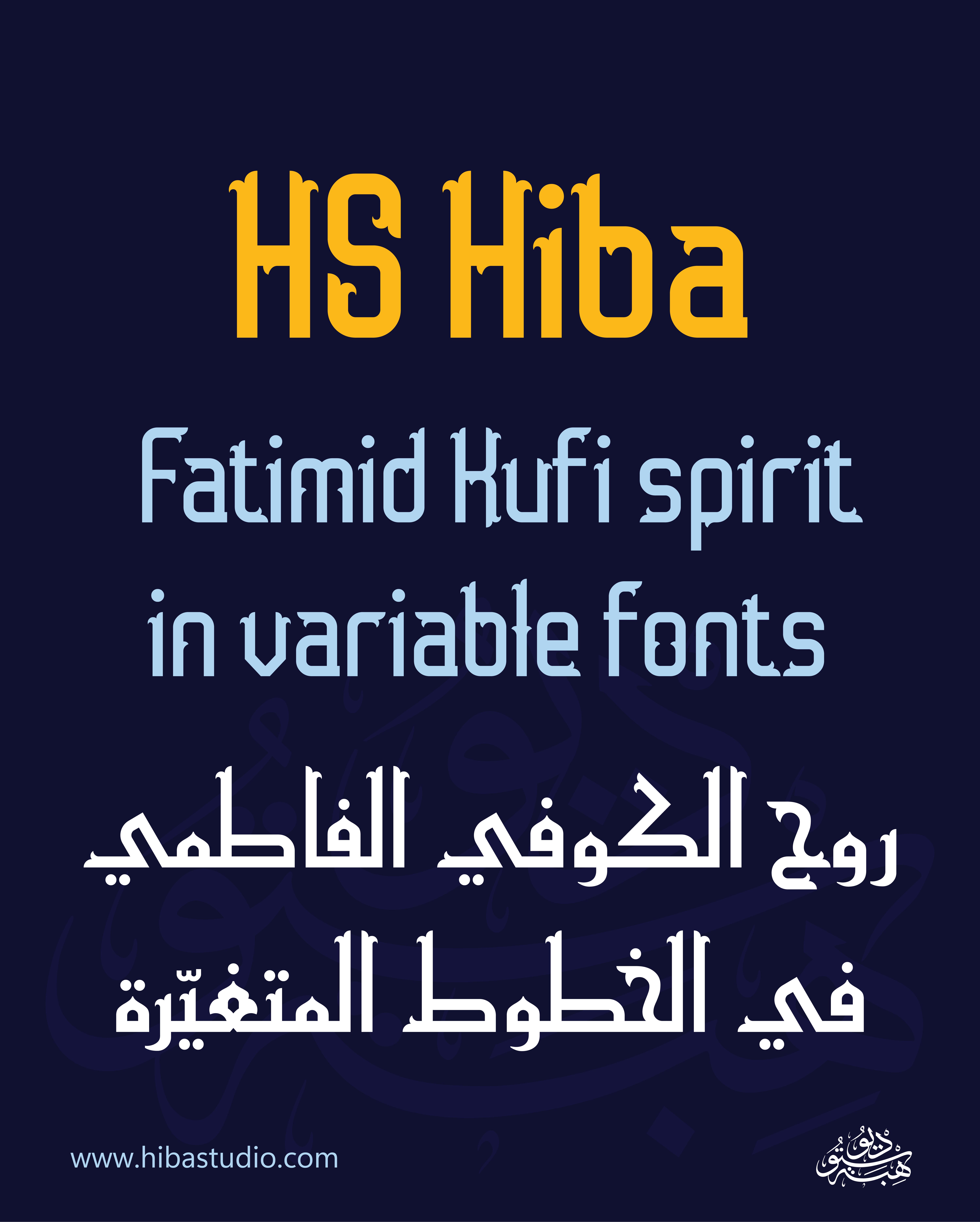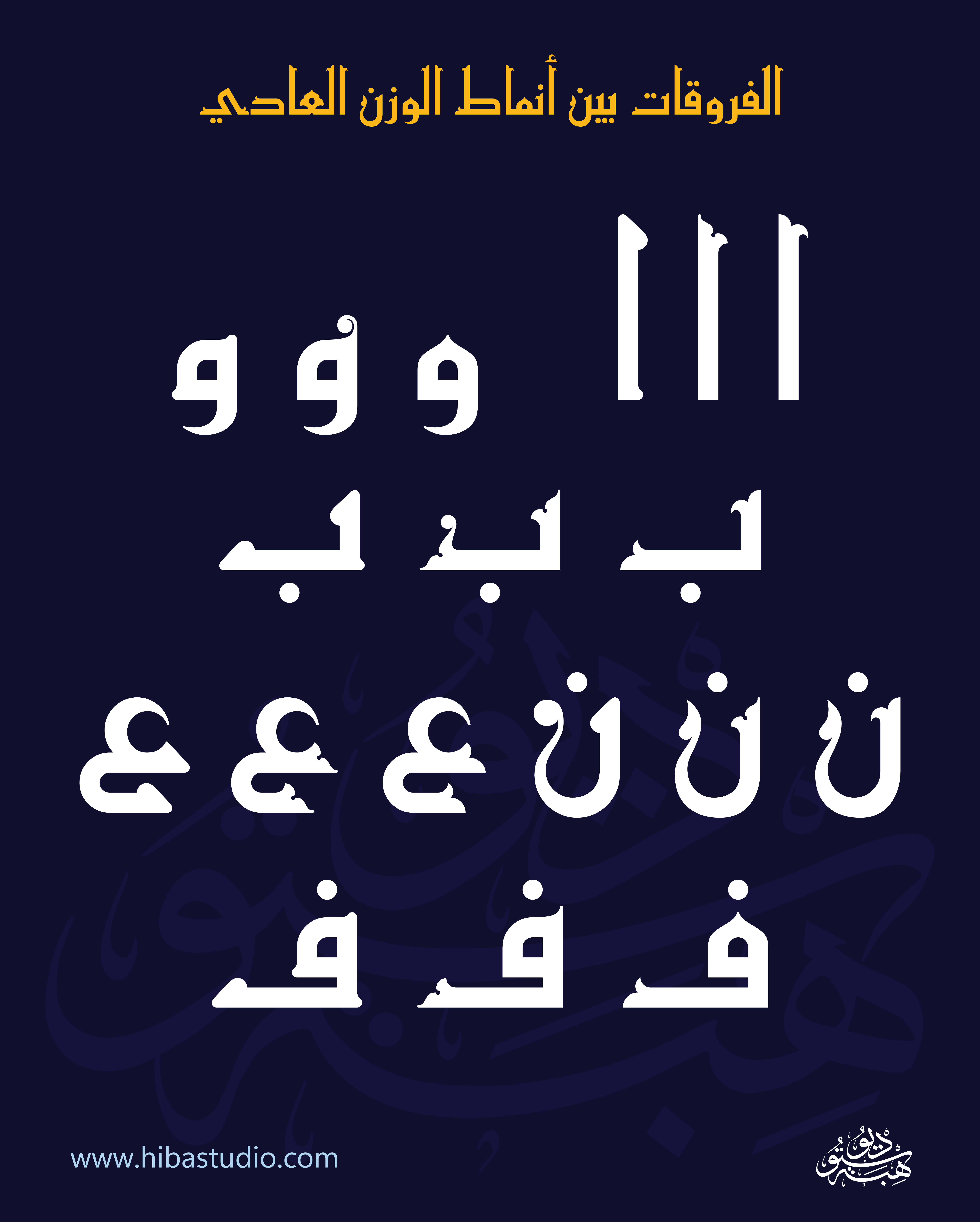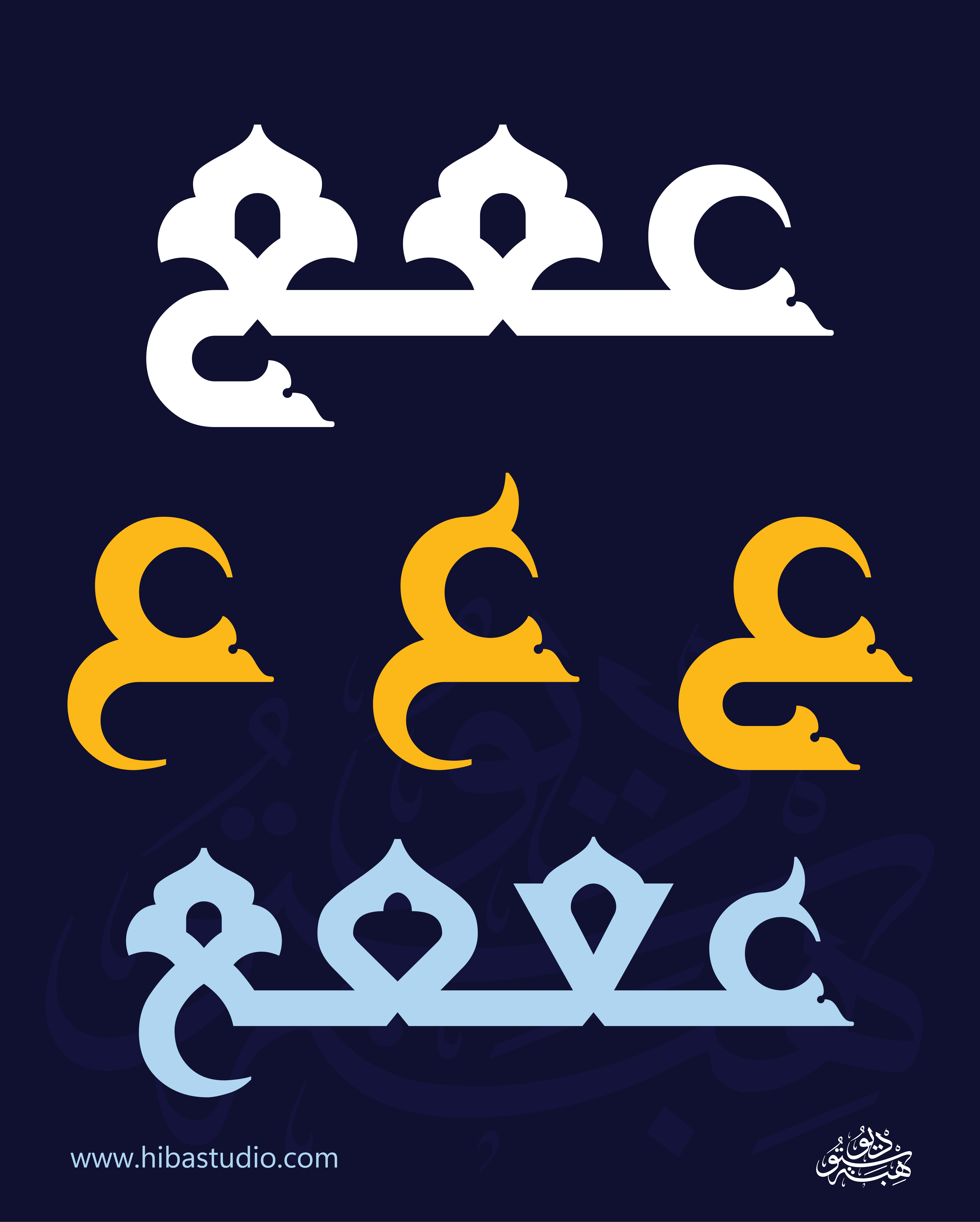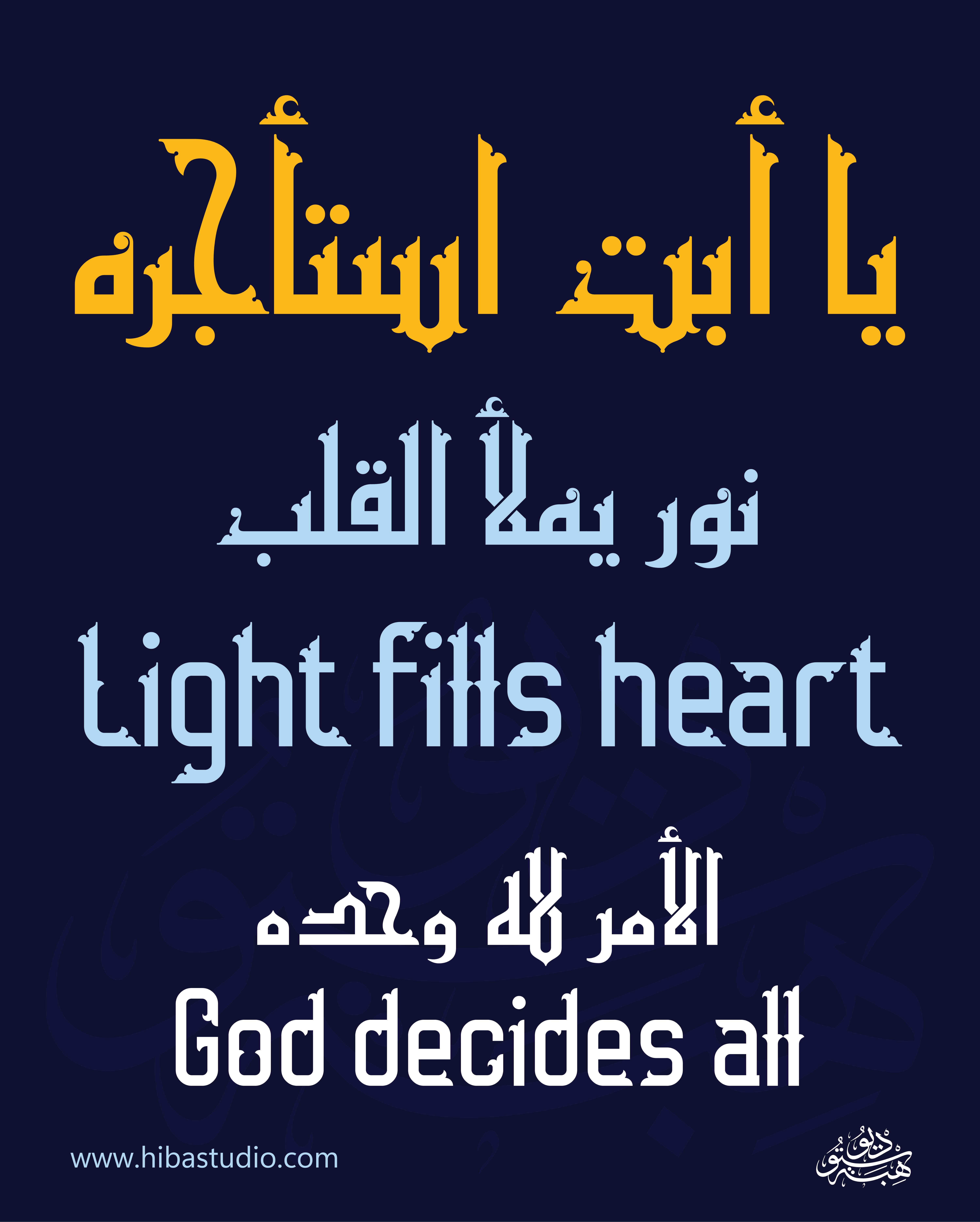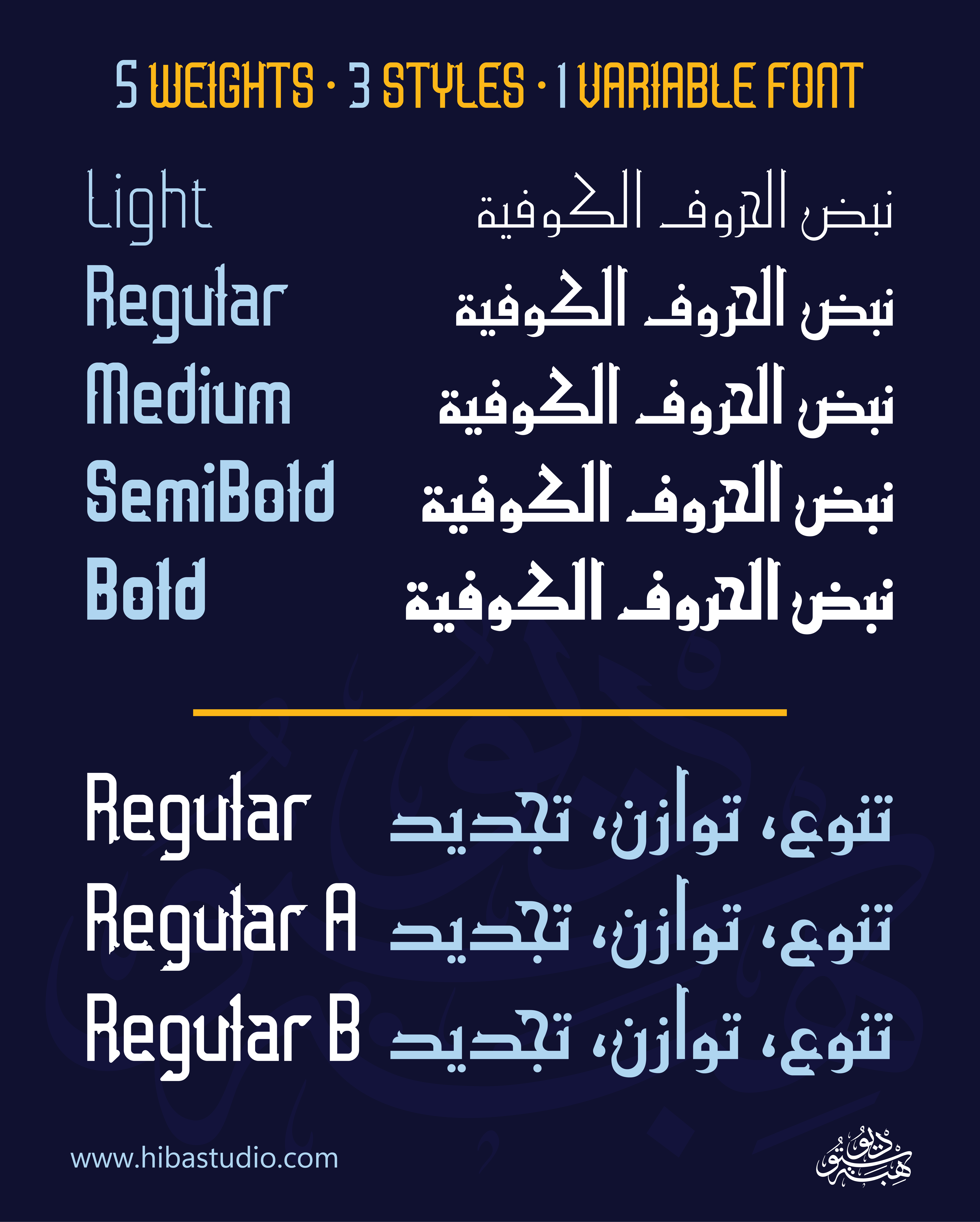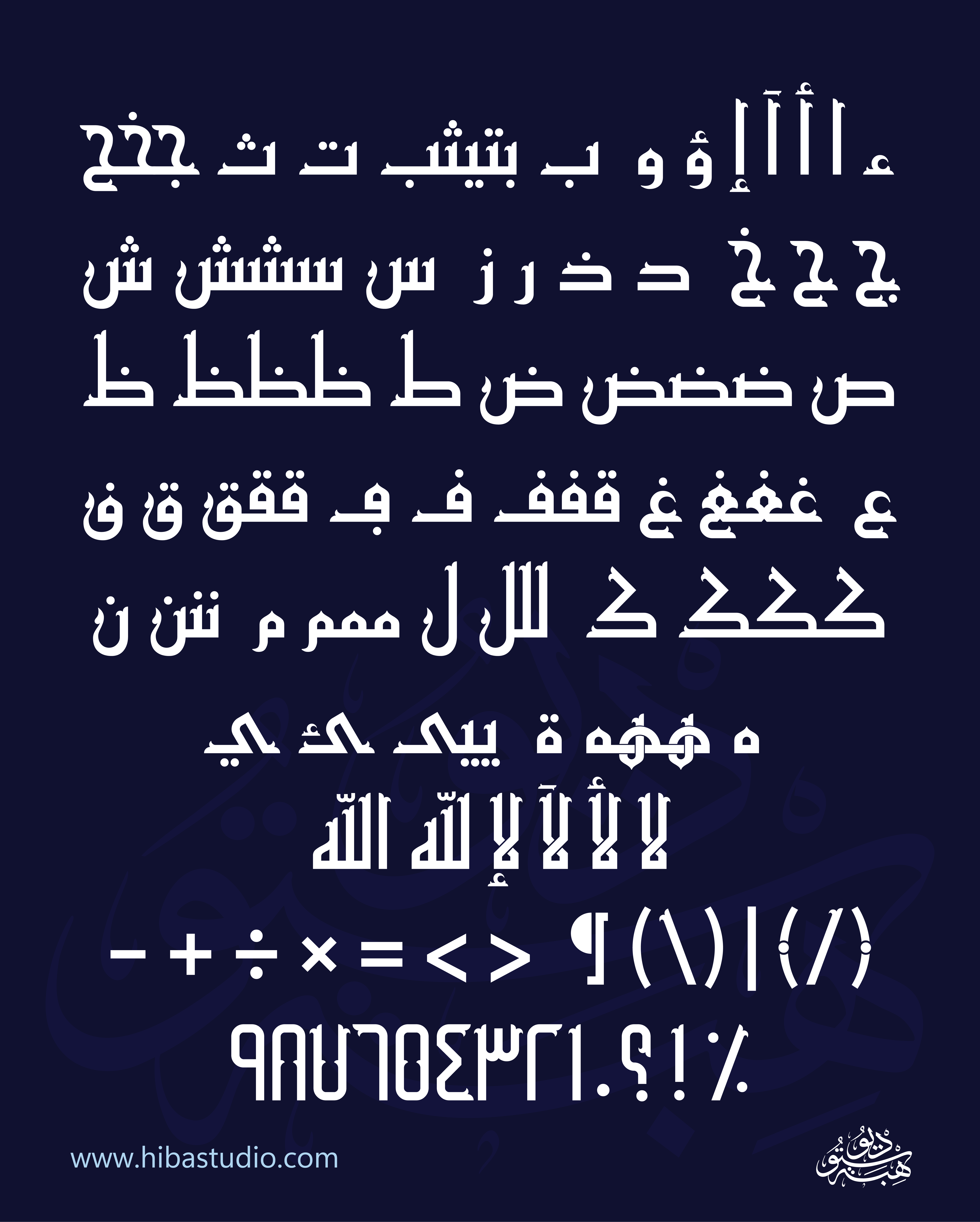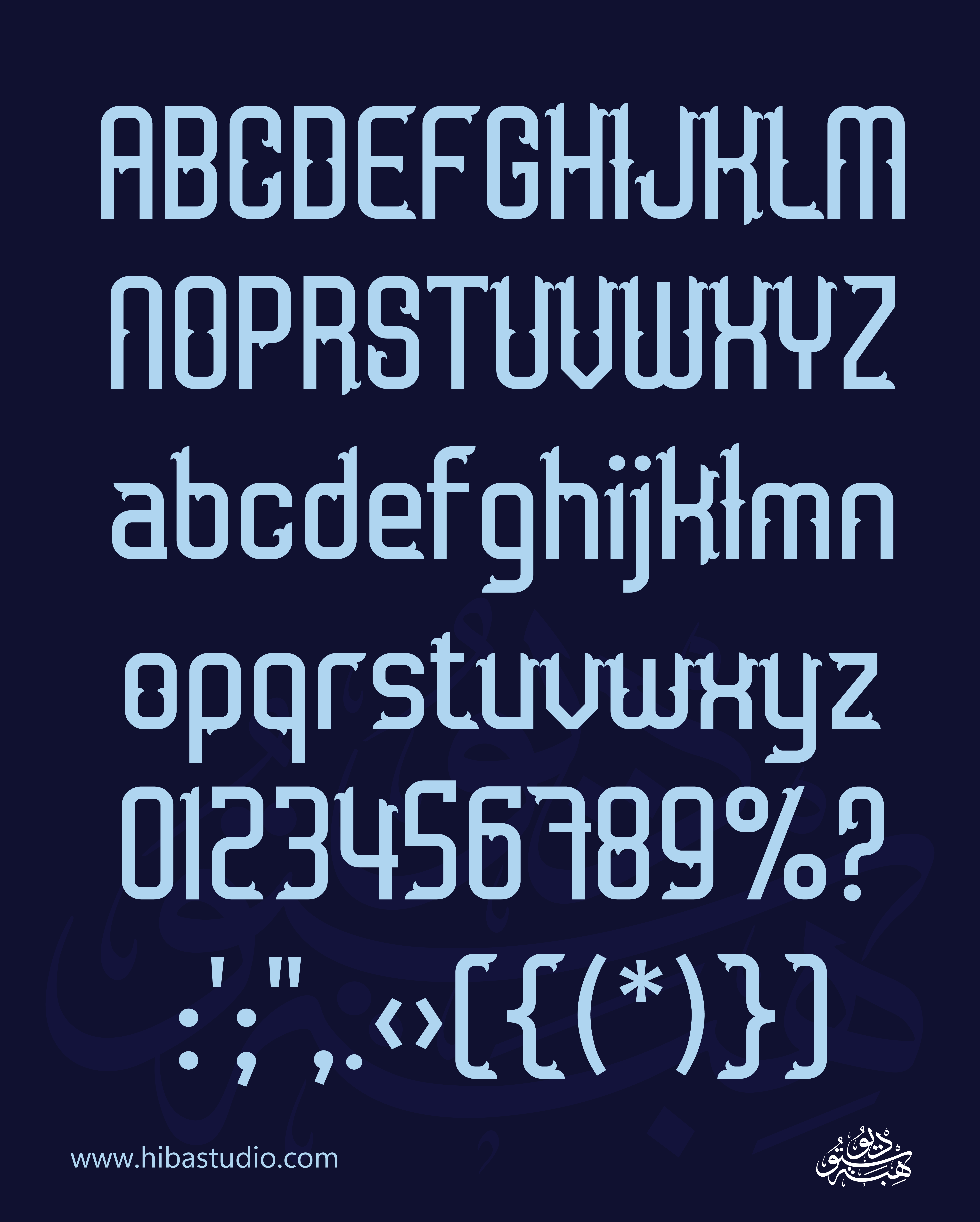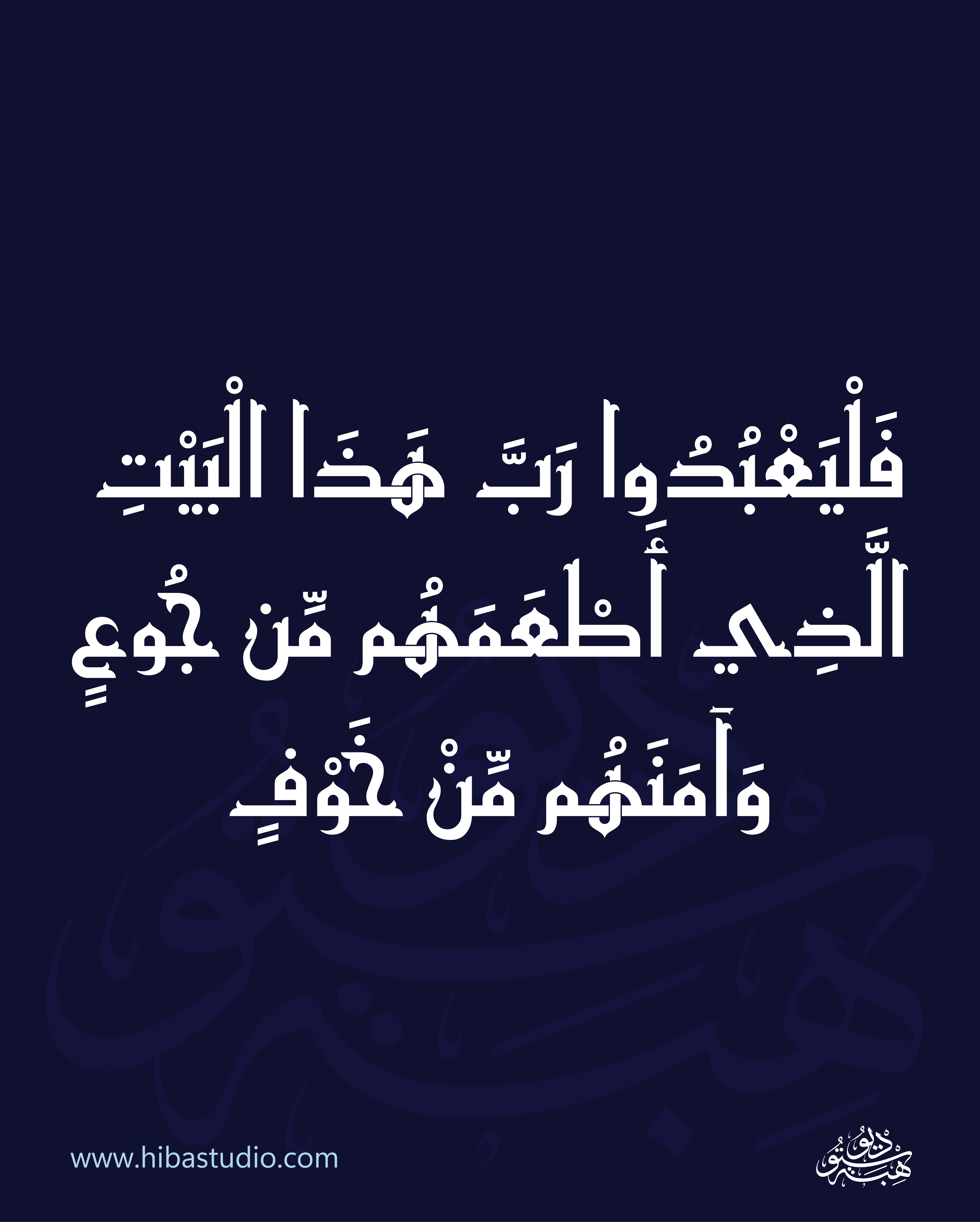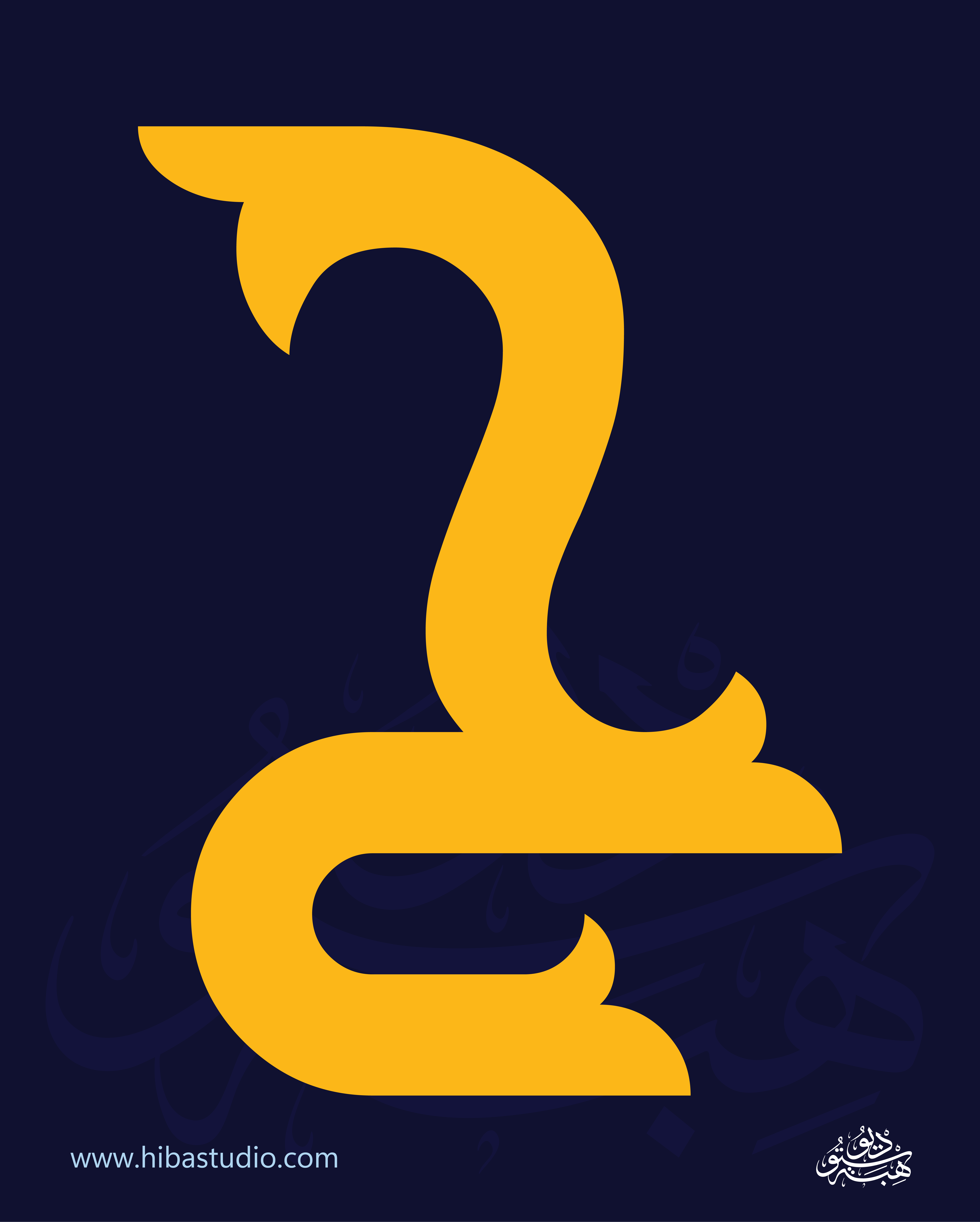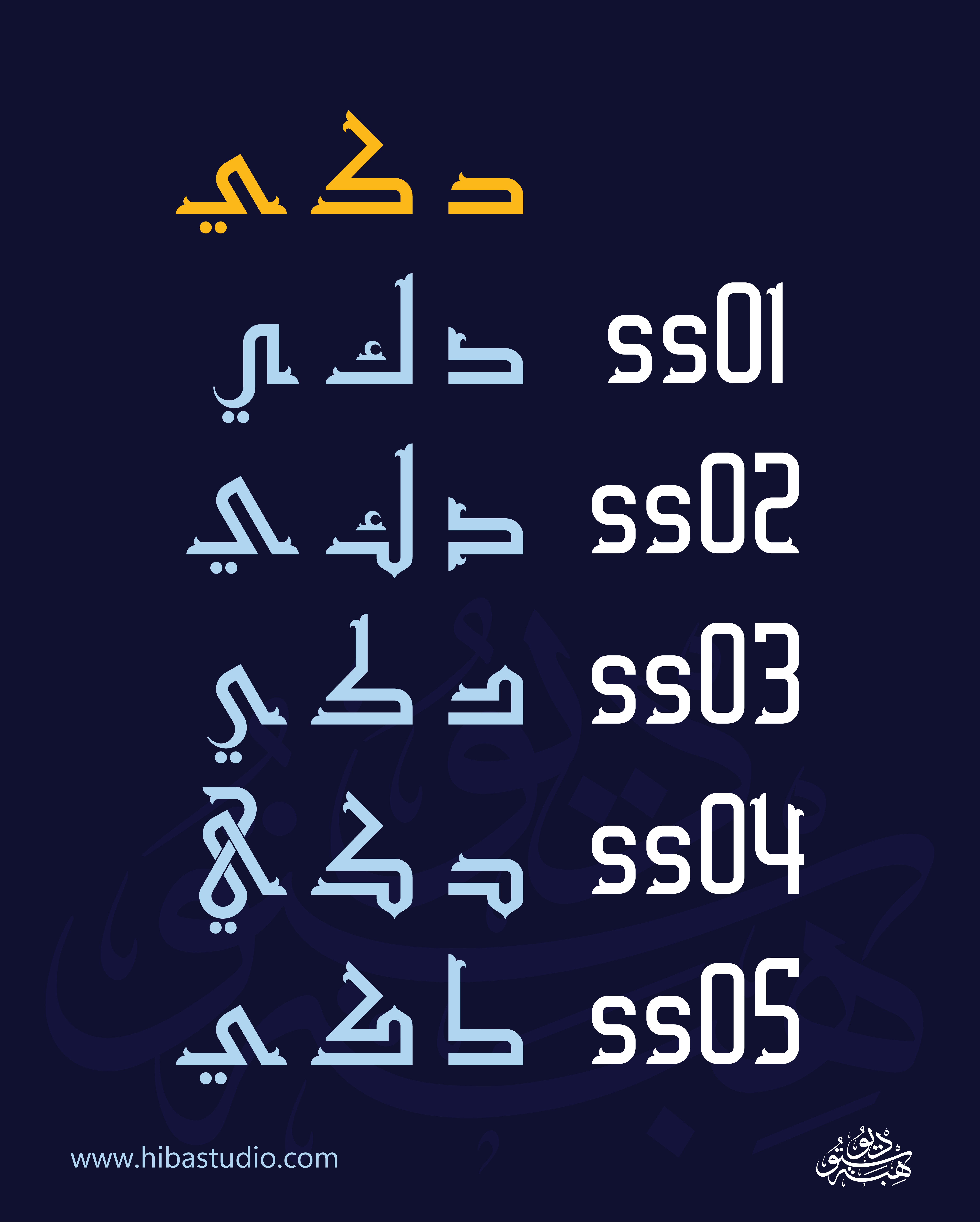
HS Hiba
HS Hiba – The Spirit of Fatimid Kufi with a Contemporary Touch
HS Hiba is a variable Arabic typeface that blends traditional aesthetics with geometric precision. Inspired by the principles of Fatimid Kufi, it incorporates modern design elements that balance heritage with contemporary expression.
The typeface was designed by Hasan Abu Afash as a complete redesign of the original Hasan Hiba, first released in 2005. It won 5th place in the Display Category of a global competition organized by Linotype.
In its new version, HS Hiba comes in three distinct stylistic variations of the Regular weight only (HS Hiba Regular). The two additional styles (HS Hiba Regular A and HS Hiba Regular B) differ in their terminal forms (Zulfah or Tarweesah), with various letterform refinements that give each variation a unique visual personality.
The main style of the typeface includes five static weights:
Light – Regular – Medium – SemiBold – Bold, along with a Variable Font version that unifies them under a single weight axis.
It supports both Arabic and English scripts, and includes multiple stylistic sets (ss01–ss05), giving designers advanced control over character appearance to suit different project needs.
Design Philosophy
HS Hiba emerges from a vision to merge the visual legacy of Fatimid Kufic with the ambitions of contemporary type design.
While preserving the strict, linear structure of the Kufic script, it introduces soft geometric harmonies to add a more human, fluid character to the letters.
The design philosophy is embodied in the availability of three stylistic options for the Regular weight, with terminals that range from sharp to ornate to minimal, providing typographers a variety of expressive choices. The five additional weights expand the font’s functionality and adaptability.
Technical Features
•Variable Font with a Weight Axis
•Five static weights for the main style: Light, Regular, Medium, SemiBold, Bold
•Three stylistic variations of the Regular weight with letterform variations across the three styles
•Support for Arabic and English
•Complete support for Arabic diacritics
•Extensive OpenType features:
◦ Stylistic Sets (ss01–ss05)
◦ Ligatures
◦ Contextual Alternates
◦ Positional Forms
◦ Kerning
Use Cases
HS Hiba’s visual flexibility makes it ideal for a wide range of typographic applications, including:
• Logos and branding projects
• Display headlines and signage
• Book and magazine covers
• Cultural and heritage-themed designs
• Posters and exhibition graphics
• Editorial layouts and digital publishing
With its three stylistic variations and ornamental options, the typeface offers designers a high degree of customization while maintaining a modern spirit rooted in tradition.